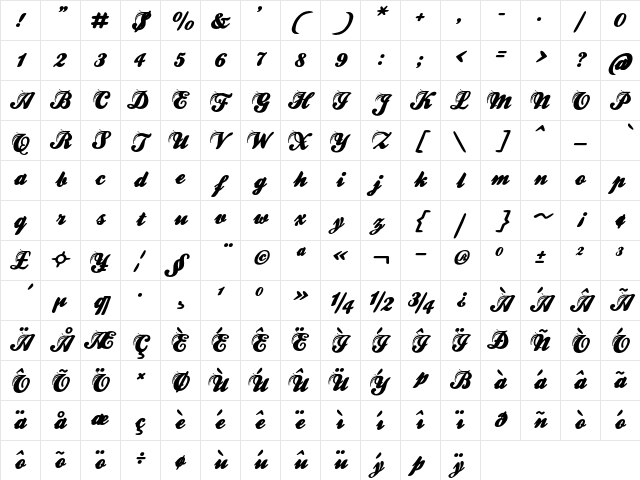
Harangut Bold
Design Context for Harangut
Harangut is a composed and adaptable typeface that performs quietly and consistently across a wide range of design contexts. Its bold stroke weight gives it real presence on the page.